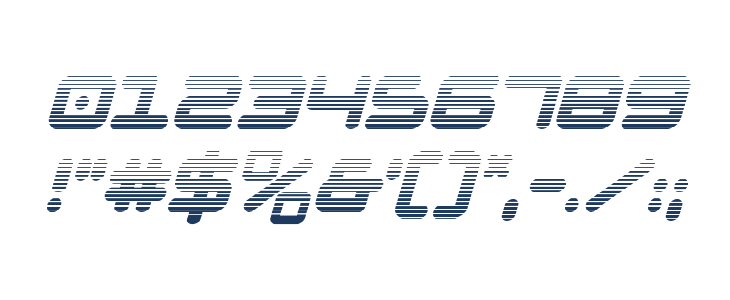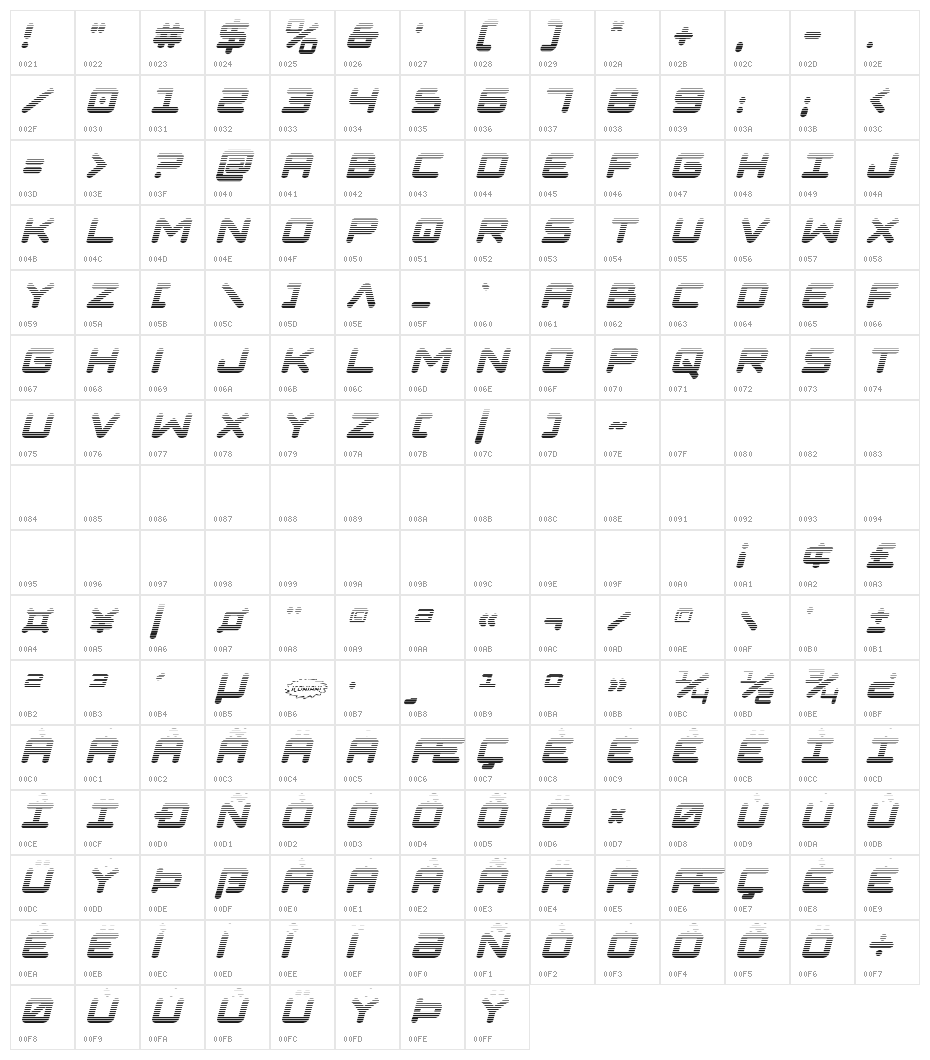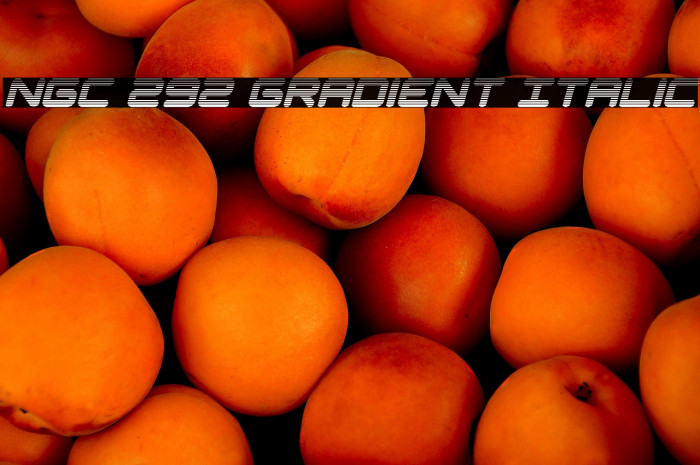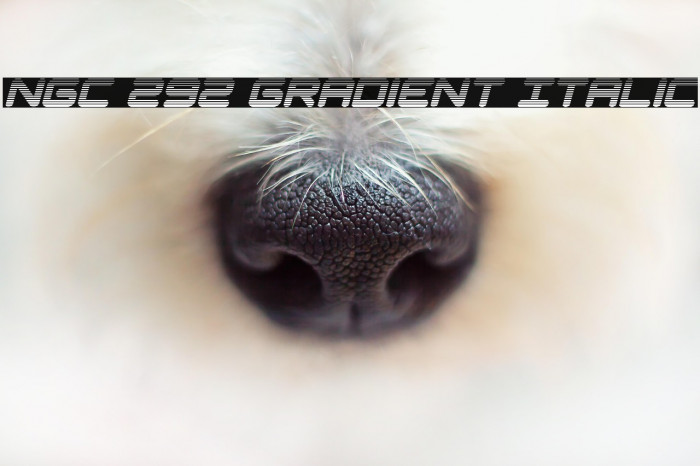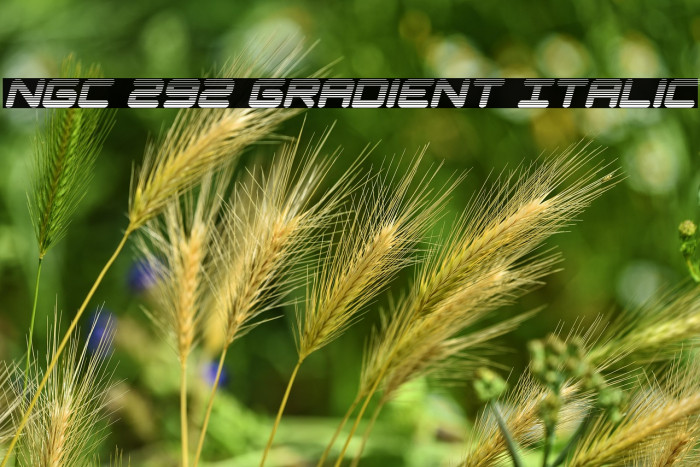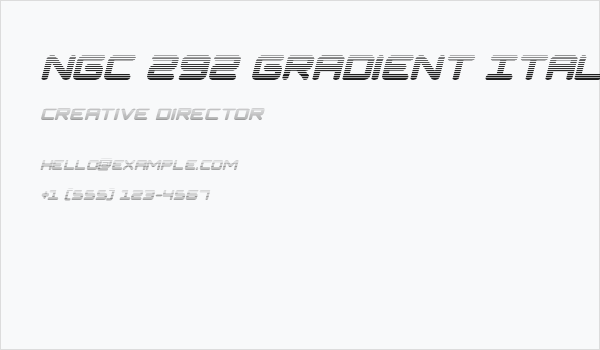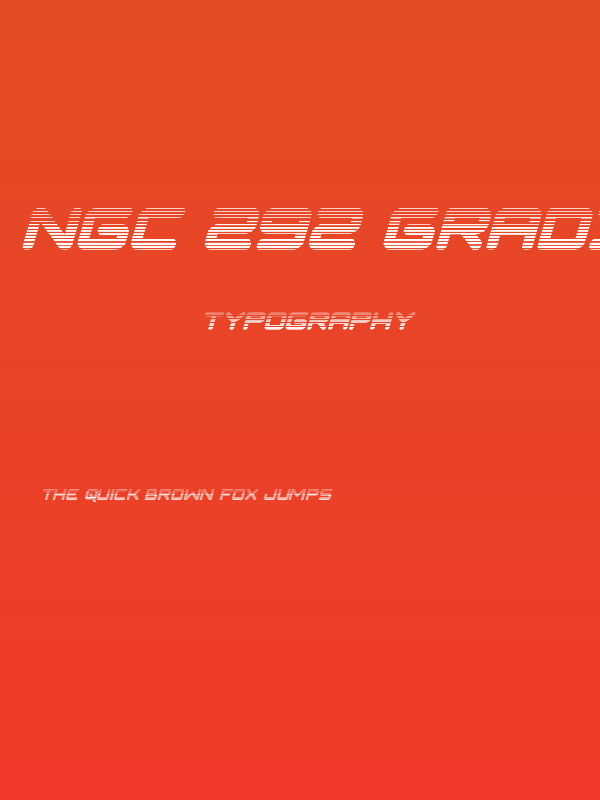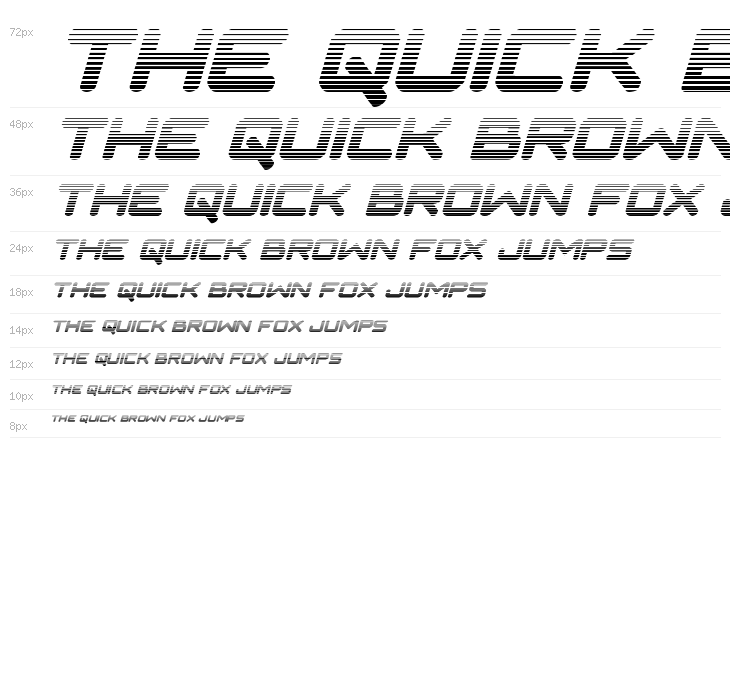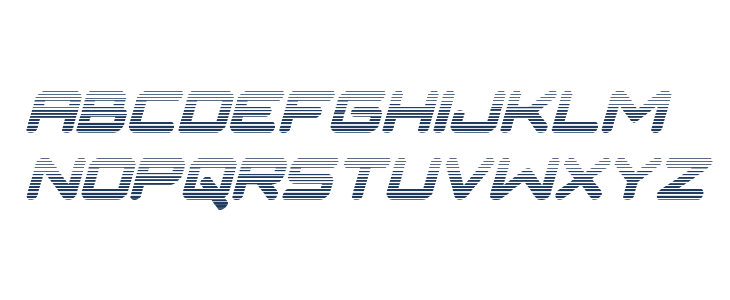
NGC 292 Gradient Italic Font
NGC 292 Gradient Italic Description
This font features a modern, dynamic design with a distinct italic slant, giving it a sense of motion and speed. The characters are composed of horizontal lines that create a gradient effect, adding depth and a futuristic feel. The uppercase and lowercase letters maintain a consistent style, with sharp angles and clean lines. Numbers and special characters are designed to match the overall aesthetic, ensuring uniformity across all glyphs. This font is ideal for projects that require a bold, contemporary look with a touch of technological flair.